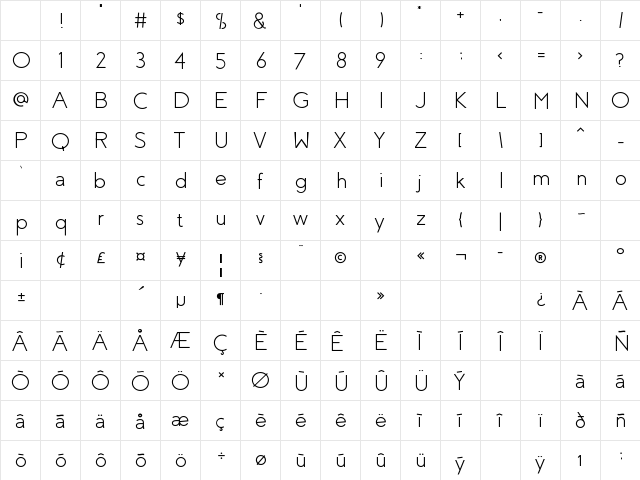
Coves is a composed and adaptable typeface that performs quietly and consistently across a wide range of design contexts. Its slender proportions lend an understated elegance to any composition.